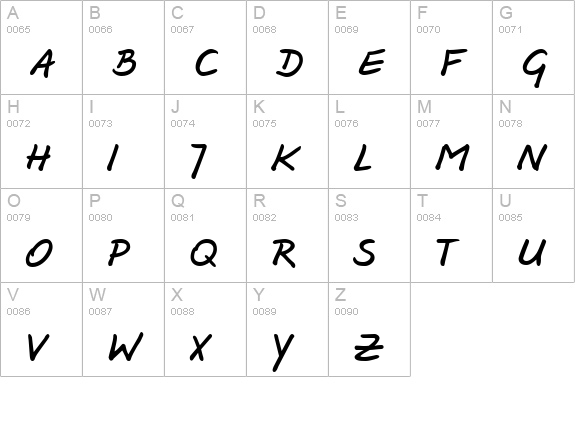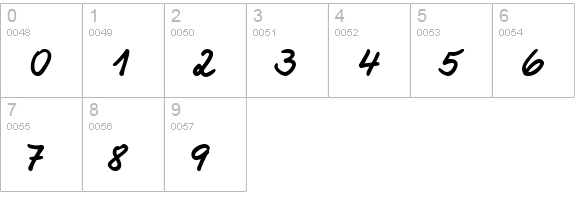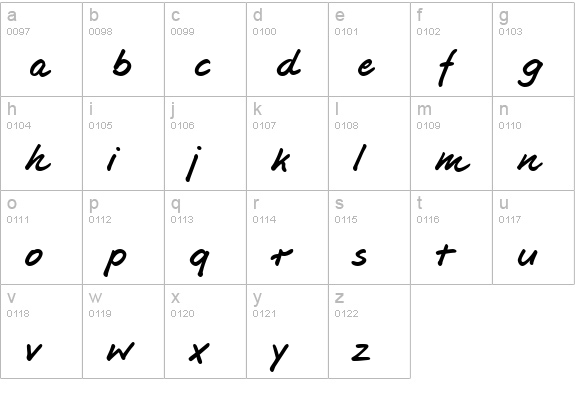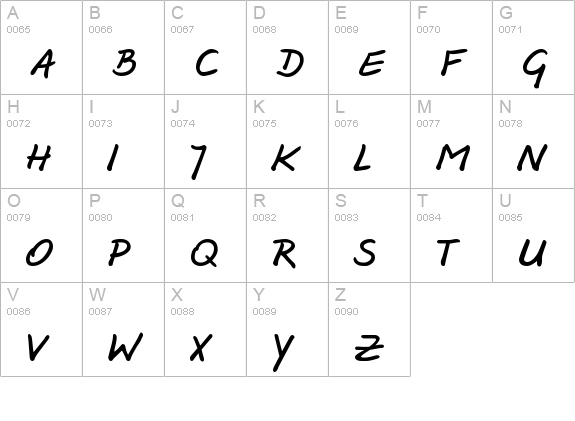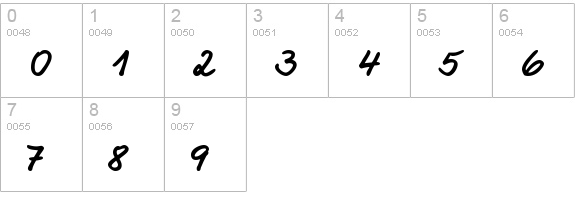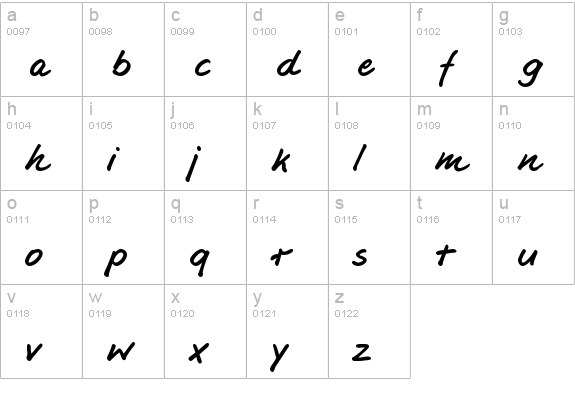
Jesco3 Handwriting Font Details
Jesco3 Handwriting font is a charming and whimsical typeface that exudes warmth and personality. With its unique hand-drawn style, this font is perfect for adding a personal touch to your projects. Whether you're designing greeting cards, invitations, or social media graphics, Jesco3 Handwriting will bring a playful and creative flair to your work. The best part? Jesco3 Handwriting font is completely free to download at FontsMarket.com. This means you can easily access this delightful font and use it in your designs without any cost. So why wait? Add a touch of creativity to your projects with Jesco3 Handwriting font today!